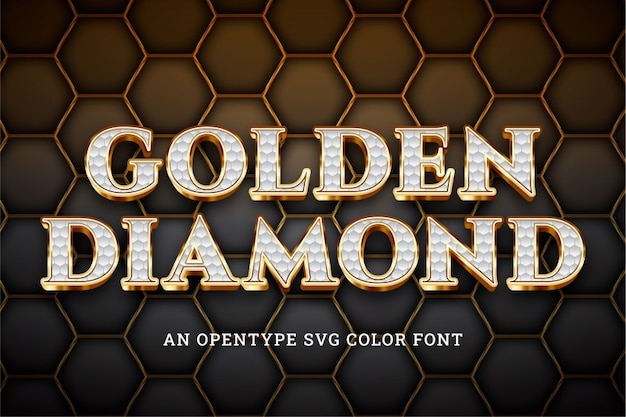
Golden Diamond
Golden Diamond Font
Golden Diamond font is the bling-bling of fonts, dripping in luxury like a fancy gold watch. It's sleek, stylish, and oozes opulence - imagine letters made of pure gold, shining and elegant. Each stroke feels like polished metal, giving your design that upscale, high-class vibe. It's the font that screams 'expensive taste' without saying a word.